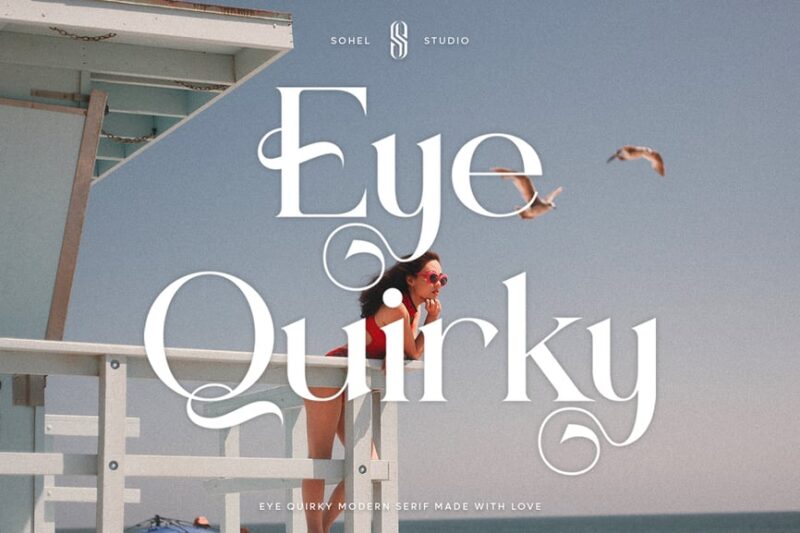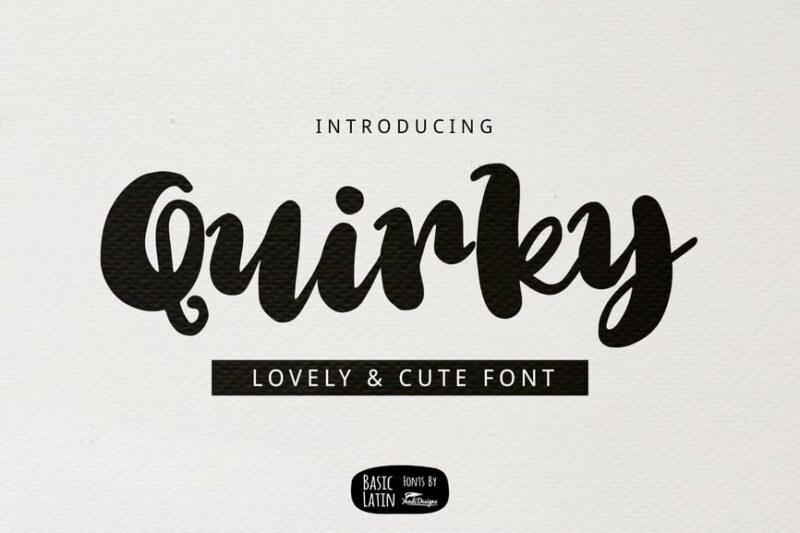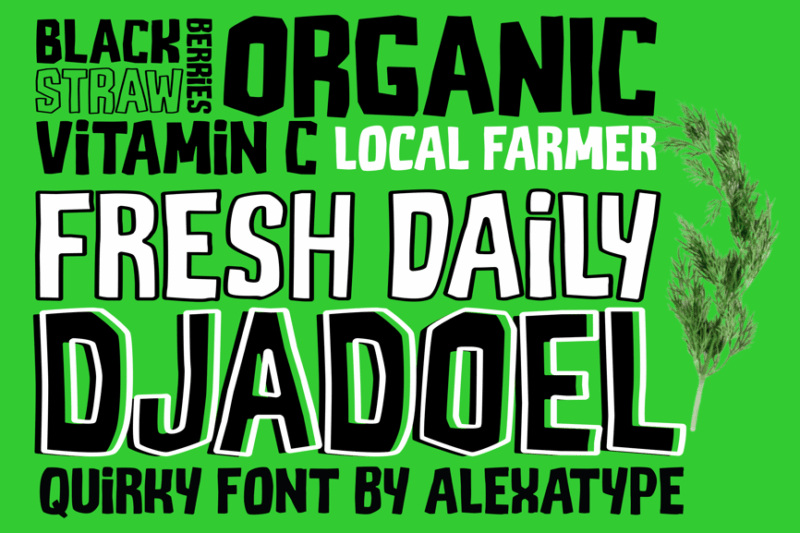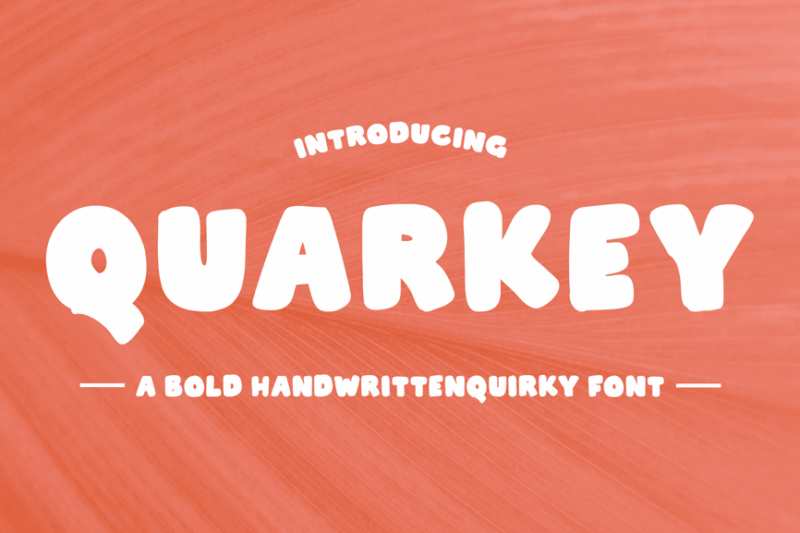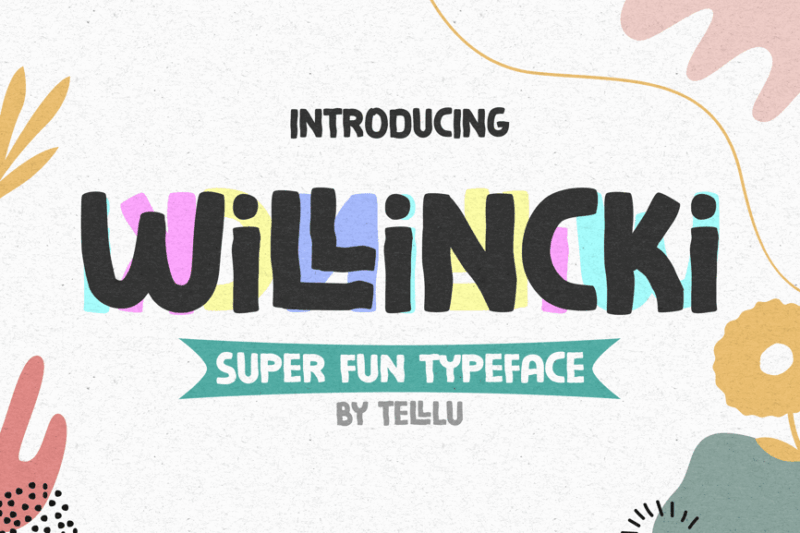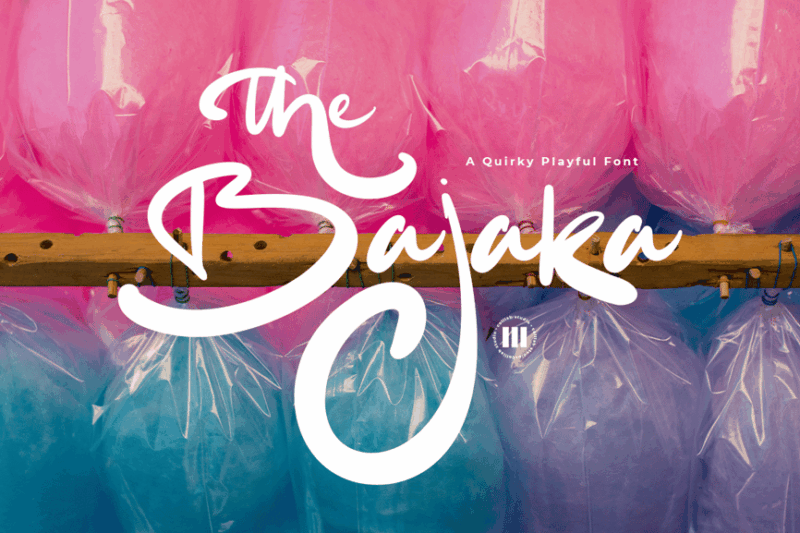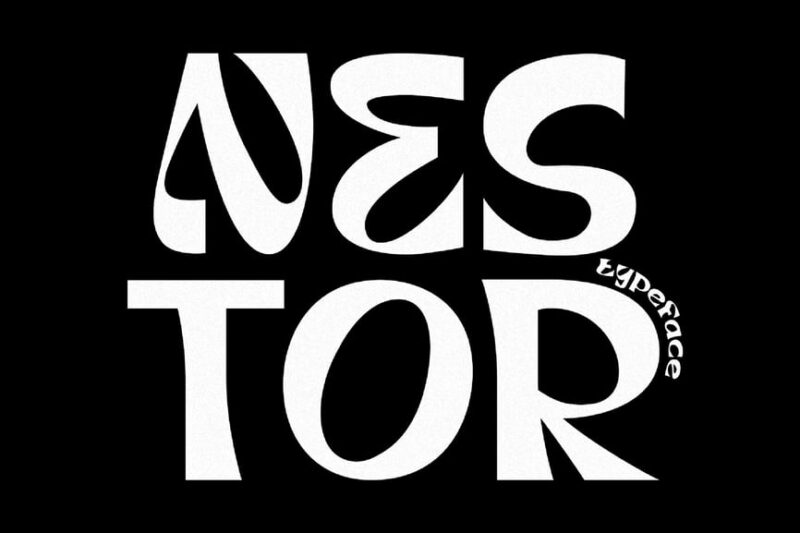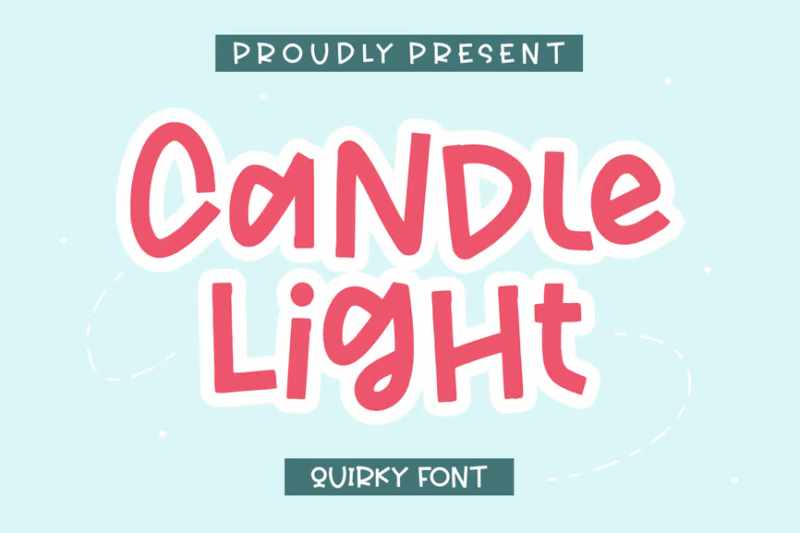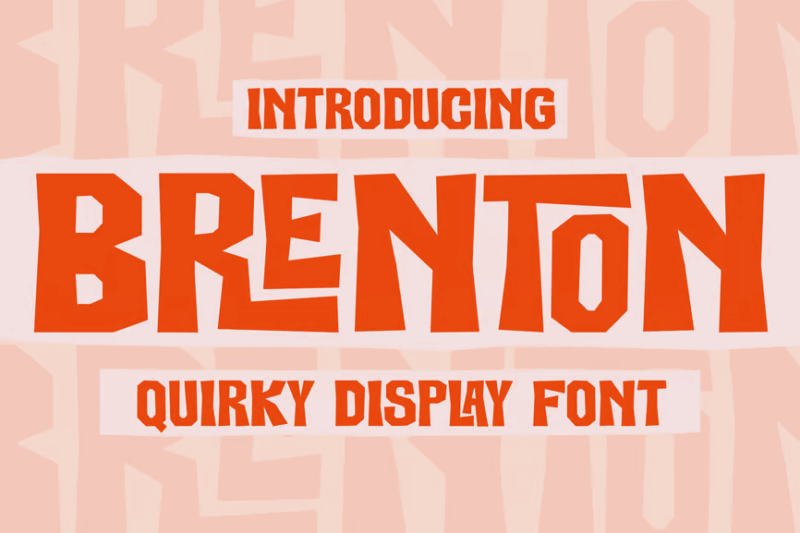
Quirky fonts are the lighthearted rebels of the typography world – they’re the ones with unexpected shapes, playful irregularities, and distinctive characters that refuse to follow the crowd. In a design landscape where minimalism has ruled for years, these unconventional fonts have become the perfect antidote to visual boredom.
Let’s jump into this typographic adventure and discover how the right quirky font can transform your next design from forgettable to unforgettable!
The Most Eye-Catching Quirky Fonts of 2026
I’ve scoured the design universe to bring you the absolute best quirky fonts that are making waves this year. Each one brings something unique to the table – from nostalgic retro vibes to completely off-the-wall experimental designs. Here are my top picks:
Juggler
Juggler is a bold block font with a quirky twist. Its strong, blocky letterforms are balanced with unexpected curves and angles, making it ideal for eye-catching headlines and branding projects that require a unique personality.
Quirky Font
Quirky Font is a handwritten script font that embodies simplicity and playfulness. Its whimsical character makes it suitable for casual designs, greeting cards, and projects that require a friendly, approachable feel.
Twelny
Twelny is a quirky and sweet sans-serif display font with a groovy vibe. Its rounded forms and subtle imperfections give it a friendly, approachable feel, making it suitable for branding projects, social media graphics, and retro-inspired designs.
DJADOEL
DJADOEL is a quirky all-caps sans-serif font with a decorative flair. Its playful nature makes it perfect for children’s designs and eye-catching posters, adding a fun and energetic vibe to any project.
Random Glyphs
Random Glyphs is a quirky mixed font that combines various glyph styles for a unique and eclectic look. This decorative font is perfect for creating attention-grabbing headlines, posters, or social media graphics that stand out from the crowd.
Quarkey
Quarkey is a handwritten quirky font that exudes a summery, carefree feel. Its decorative style makes it ideal for creating designs with a personal touch, perfect for social media posts, invitations, and casual branding.
Cliffhanger
Cliffhanger is a cute and quirky decorative font that showcases a unique alphabet design. Its playful nature makes it perfect for children’s books, fun logos, and designs that require a whimsical, lighthearted touch.
Eye Quirky
Eye Quirky is an elegant and unique serif font that combines classic aesthetics with a touch of quirkiness. Its decorative elements make it perfect for creating sophisticated designs with a subtle twist, ideal for branding and editorial projects.
Willincki
Willincki is a quirky and playful sans-serif typeface that embodies a casual and fun aesthetic. Its unique character makes it suitable for branding projects, packaging designs, and social media content that aims to stand out.
The Bajaka
The Bajaka is a quirky and playful doodle font with a unique decorative style. Its versatility makes it suitable for various business applications, from creative branding to eye-catching advertisements and social media graphics.
Nestor
Nestor is a quirky sans-serif typeface with decorative elements that spark creativity. Its unique character makes it ideal for modern branding projects, editorial designs, and digital media that require a fresh and innovative look.
Lemondy
Lemondy is a quirky sans-serif font with a fun and playful aesthetic. Its decorative style makes it perfect for creating eye-catching headlines, logos, and designs that require a bold and energetic presence.
Candle Light Quirky Font
Candle Light is a quirky script font that brings a handwritten charm to designs. Its unique style makes it ideal for branding projects, particularly those requiring a personal touch, such as invitations, logos, and packaging designs.
Brenton Quirky Display Font
Brenton is a quirky display font that combines sans-serif structure with decorative elements. Its distinctive character makes it perfect for creating standout branding materials, headlines, and designs that need to capture attention quickly.
Solnechka
Solnechka is a playful and quirky typeface designed specifically for children’s content. Its whimsical letterforms and cheerful aesthetic make it perfect for school-related projects, kids’ books, and educational materials.
Monro
Monro is a quirky display typeface that combines decorative elements with playful design. Its distinctive letterforms and creative ligatures make it perfect for creating memorable logos, packaging designs, and editorial headlines.
Crazy Party
Crazy Party is a quirky handmade font that exudes energy and excitement. Its irregular, hand-drawn appearance and freaky style make it perfect for party flyers, event posters, and designs that aim to capture a wild and spontaneous atmosphere.
Story Basty
Story Basty is a quirky handwritten font that combines elements of typography and calligraphy. Its flowing letterforms and unique character variations add a personal touch to designs, making it ideal for storytelling, branding, and creative projects that require a handcrafted feel.
Freaky Vibes
Freaky Vibes is an earthy lettering font that lives up to its name. Its decorative and unconventional letterforms create a sense of eccentricity and fun, perfect for designs that need to stand out and express a unique personality.
Savage Garden
Savage Garden is a set of three quirky and playful fonts that work harmoniously together. The varied styles within this family allow for versatile design options, making it suitable for branding projects, editorial layouts, and creative packaging designs.
Truly Quirky
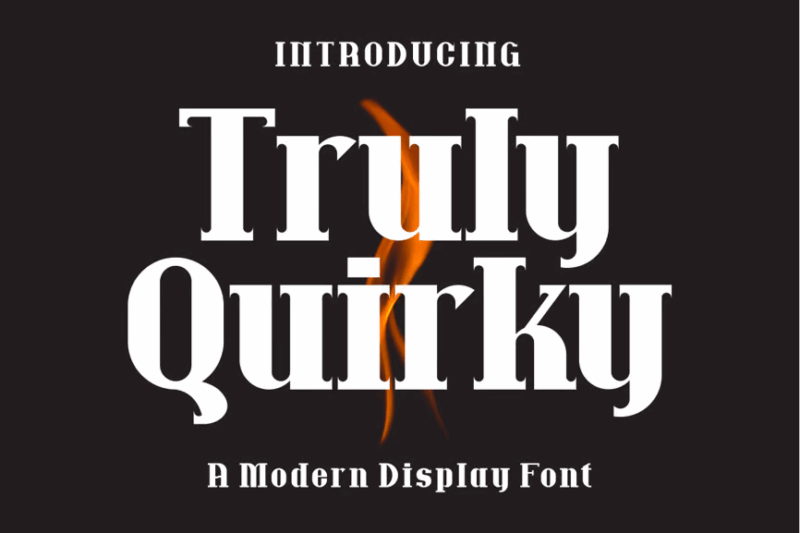
Truly Quirky is a serif font that combines traditional elements with unexpected twists. Its unique character shapes and subtle irregularities add personality to designs while maintaining readability, making it suitable for both body text and display purposes.
Charity
Charity is a quirky display font with a handwritten, script-like appearance. Its friendly and approachable style makes it perfect for non-profit organizations, community events, and designs that aim to convey warmth and compassion.
Osnabrug
Osnabrug is a quirky handwritten font that captures a range of emotions from happy to angry. Its expressive letterforms and varied character styles make it ideal for comic book designs, children’s illustrations, and projects that require a dynamic, emotive typeface.
Quirky Fashion
Quirky Fashion is a serif font designed specifically for fashion-related logos and websites. Its elegant yet unconventional letterforms strike a balance between sophistication and uniqueness, making it perfect for high-end fashion brands and lifestyle publications.
Asterluck
Asterluck is a quirky display font that combines script and handwritten styles. Its playful and fun character makes it perfect for creative projects that require a whimsical touch.
Sticky Glue
Sticky Glue is a bold, decorative font with a quirky personality. Its unique textured appearance resembles glue, making it ideal for eye-catching headlines and branding projects that demand attention.
Brakle
Brakle is a retro-inspired grotesk rounded sans-serif font. Its 90s aesthetic and smooth edges make it versatile for both modern and nostalgic design projects, particularly in branding and editorial layouts.
Tomcat Likely
Tomcat Likely is a quirky font that blends sans-serif and script styles. Its unique character makes it suitable for branding projects that require a playful and distinctive typographic voice.
Cheese Foodies
Cheese Foodies is a quirky font family combining script, handwritten, and sans-serif styles. Its cartoony nature makes it perfect for food-related branding, packaging, and fun, lighthearted designs.
Party Rocky
Party Rocky is a quirky sans-serif font designed for branding and fun projects. Its playful character and unique letterforms make it ideal for party invitations, children’s products, and energetic designs.
Bunny Galore
Bunny Galore is a decorative display font with a quirky charm. Its playful and whimsical nature makes it perfect for children’s books, greeting cards, and designs that require a touch of fun and imagination.
Carrier
Carrier is a decorative font featuring silhouettes, making it ideal for wedding-related designs. Its elegant and sophisticated style lends itself well to invitations, monograms, and romantic-themed projects.
Break Fast
Break Fast is a quirky display font with a handwritten feel. Its playful and energetic character makes it perfect for food-related designs, casual branding, and projects that require a friendly, approachable tone.
Comba
Comba is a bold, sans-serif display font designed for impact. Its strong presence and modern aesthetic make it ideal for posters, headlines, and designs that need to make a powerful visual statement.
Mommy Crafts
Mommy Crafts is a quirky and playful sans-serif font perfect for children’s designs and party invitations. Its decorative style adds a touch of whimsy to any project, making it ideal for crafty moms and creative professionals alike.
Double Pineapple
Double Pineapple is a playful and quirky decorative font that exudes tropical vibes. Its unique character shapes and fun design make it perfect for summer-themed projects, beach party invitations, or any design that needs a dose of cheerful energy.
CS Belia
CS Belia is a display sans-serif font that combines fun and playfulness with modern aesthetics. Its clean lines and rounded edges make it versatile for various design applications, from branding to editorial layouts.
IB – Sleggie
IB – Sleggie is a multi-style font family that includes serif, script, and handwritten variations. Its playful and display-oriented design makes it suitable for a wide range of creative projects, from logos to packaging designs.
Girly Kids font
Girly Kids font is a playful and fun sans-serif font with a Scandinavian-inspired design. Its quirky character shapes and gentle curves make it ideal for children’s products, nursery decor, and cute, feminine designs.
Hikaru
Hikaru is a whimsical brush font that brings a touch of handcrafted elegance to designs. Its flowing script style and subtle texture make it perfect for creating logos, packaging, or any project that requires a personal, artistic touch.
Monster Mash
Monster Mash is a quirky decorative font themed around dinosaurs and monsters. Its playful and imaginative design makes it perfect for children’s books, Halloween projects, or any design that needs a touch of friendly monster charm.
Ougkeh
Ougkeh is a vintage-inspired serif font with an antique feel. Its elegant letterforms and subtle imperfections give it a timeless quality, making it suitable for high-end branding, editorial designs, or projects that require a touch of classic sophistication.
Clever Science
Clever Science is a quirky decorative font designed with an educational theme. This versatile font family includes 11 variations, making it perfect for creating engaging and fun designs for scientific publications, educational materials, or STEM-related projects.
Music Note
Music Note is a quirky display font with a musical theme. Its unique design incorporates musical symbols and notes, making it ideal for creating eye-catching designs for music events, album covers, or any project related to the music industry.
Wiloka
Wiloka is a modern sans-serif font with a clean and minimalist design. Its balanced proportions and subtle character details make it an excellent choice for logo design, branding projects, or any application that requires a contemporary and versatile typeface.
Froaky
Froaky is a stylish display sans-serif font with a bold and contemporary feel. Its unique character shapes and geometric influences make it perfect for creating impactful headlines, logos, or modern branding projects that demand attention.
SUBURBIA
SUBURBIA is a sharp and quirky sans-serif font inspired by Saul Bass’s iconic style. Its cutout design and bold shapes make it ideal for creating retro-inspired graphics, movie posters, or any project that aims to capture a vintage mid-century aesthetic.
Skreeble
Skreeble is a fun and playful handwriting font that mimics scribbled text. Its casual and energetic style makes it perfect for adding a personal touch to designs, creating informal graphics, or adding a handmade feel to digital projects.
Colorful Candy
Colorful Candy is a quirky display font that lives up to its name with a sweet and vibrant design. Its playful character shapes and candy-inspired aesthetics make it ideal for children’s designs, confectionery branding, or any project that needs a dose of colorful fun.
Mr Blue Sky Font
Mr Blue Sky is a fun and cheerful display sans-serif font. Its rounded edges and playful design make it perfect for creating friendly and approachable designs, such as children’s book covers, casual branding, or upbeat marketing materials.
What Makes a Font Truly “Quirky”?
Before we dive deeper, let’s get clear on what actually makes a font deserve the “quirky” label. It’s more than just being unusual – truly quirky fonts have specific characteristics that set them apart:
Unexpected Character Shapes
Quirky fonts often feature letterforms that challenge our expectations. They might have unusual proportions, unexpected angles, or completely reimagined structures while still remaining recognizable enough to read. Think of letters with extra loops, missing pieces, or elements that extend well beyond the normal boundaries.
Playful Irregularity
Unlike traditional fonts that value consistency, quirky fonts embrace irregularity. They might feature varying baselines, inconsistent weights, or characters that seem to dance around rather than sit neatly in a row. This controlled chaos is what gives these fonts their distinctive personality.
Distinctive Details
Look closely at any quirky font and you’ll notice thoughtful details that add character – unusual serifs, unexpected textures, or creative ligatures that connect letters in surprising ways. These small touches often become the most memorable aspects of the design.
Rule-Breaking Attitude
At their core, quirky fonts have a rebellious spirit. They intentionally break typographic conventions – yet do so with enough purpose and skill that they remain functional. The best quirky fonts know exactly which rules to break and which to keep.
These characteristics combine to create fonts that do more than just communicate words – they communicate personality, emotion, and a distinct point of view. That’s the true power of a quirky font when used thoughtfully.
How to Pair Quirky Fonts Effectively
Quirky fonts shine brightest when they’re given the right supporting cast. The art of pairing these distinctive typefaces requires a delicate balance – you want to complement their uniqueness without creating visual chaos. Here’s how to nail those pairings:
Balance with Neutrals
The golden rule of using quirky fonts is to pair them with clean, neutral companions. A minimalist sans-serif like Helvetica or Open Sans provides the perfect backdrop for your quirky font to stand out. This contrast creates visual hierarchy while keeping the overall design balanced.
Mind the Mood
Every quirky font has a distinct personality and emotional tone. When pairing, make sure your secondary font matches this mood. A playful, bouncy quirky font might pair well with a friendly rounded sans-serif, while a quirky font with vintage vibes might work better with a classic serif.
Create Clear Hierarchy
Reserve your quirky font for headlines, quotes, or other prominent elements where their uniqueness can shine. Use your more conventional fonts for body text and supporting information. This creates a clear visual hierarchy that guides the viewer’s eye through your design.
Limit Your Selection
When working with quirky fonts, embrace restraint. One quirky font per design is usually enough – combining multiple statement fonts is like having too many lead singers in a band. Let your chosen quirky font be the star, supported by just one or two more conventional typefaces.
Remember that successful font pairing is all about creating meaningful contrast while maintaining harmony. Your quirky font should stand out, but still feel like it belongs in the overall design.
Best Practices for Using Quirky Fonts
Quirky fonts are powerful design tools, but they require a thoughtful approach to use effectively. Here are some essential guidelines to help you make the most of these distinctive typefaces:
Know When (and When Not) to Use Them
Quirky fonts shine in projects that call for personality and creative expression – branding for unique businesses, editorial designs, posters, packaging, and social media graphics. However, they’re generally not ideal for formal documents, complex information design, or situations where absolute clarity and quick reading are essential.
Consider Readability at Different Sizes
Many quirky fonts work beautifully as large headlines but become difficult to read at smaller sizes. Always test your chosen font at various sizes to ensure it remains legible throughout your design. If a quirky font becomes unreadable when small, reserve it for larger display text only.
Give Them Room to Breathe
Quirky fonts often need more space than conventional typefaces. Give them generous line height and letter spacing to prevent characters from colliding or creating visual confusion. This breathing room also helps showcase the unique details that make these fonts special.
Use Color Strategically
Color can either enhance or overwhelm a quirky font. For fonts with intricate details or unusual shapes, simple color schemes often work best. Let the distinctive letterforms speak for themselves without competing with complex color treatments.
Consider the Medium
Some quirky fonts that look amazing on screen might lose their impact in print, and vice versa. Always test your font in the medium where it will ultimately appear. Pay special attention to how thin lines, small details, or textured elements translate across different media.
By following these best practices, you can harness the personality of quirky fonts while maintaining professional, effective design. Remember, using quirky fonts isn’t about making designs weird – it’s about making them memorable in a purposeful way.
The Psychology Behind Quirky Fonts
Ever wonder why certain fonts stick in your mind while others fade immediately? There’s fascinating psychology behind why quirky fonts can make such a powerful impression on viewers:
The Von Restorff Effect
Psychologists have identified what they call the “Von Restorff Effect” – our tendency to remember things that stand out from their surroundings. Quirky fonts leverage this principle perfectly. When most brands use safe, conventional typography, the brand with the distinctive quirky font naturally commands more attention and memory space in consumers’ minds.
Emotional Connection
Quirky fonts often evoke stronger emotional responses than traditional typefaces. Their distinctive personalities can trigger feelings of nostalgia, whimsy, excitement, or curiosity. These emotional connections make brands more memorable and help forge stronger bonds with audiences.
Brand Distinctiveness
In marketing psychology, “distinctive brand assets” are elements that people immediately associate with your brand. A unique quirky font can become one of your most powerful distinctive assets – think of how Coca-Cola’s distinctive script or Disney’s whimsical typeface are instantly recognizable even without their logos.
Pattern Disruption
Our brains are wired to notice when patterns are broken. Quirky fonts with their unexpected shapes and details create visual disruption that causes viewers to pause and pay closer attention. This extra processing time often leads to better recall later.
Understanding these psychological principles can help you use quirky fonts more strategically in your designs. When you choose a quirky font that aligns with your brand’s personality, you’re not just making an aesthetic choice – you’re creating a powerful psychological tool for brand recognition and recall.
When Quirky Fonts Go Wrong (And How to Avoid It)
For all their charm and personality, quirky fonts can sometimes go terribly wrong. Let’s look at some common pitfalls and how to avoid them:
The Readability Trap
The most common mistake is sacrificing readability for quirk factor. No matter how creative your font is, if people struggle to read it, your message gets lost. Always have someone unfamiliar with your design test the readability before finalizing.
Trend Without Purpose
Using quirky fonts just because they’re trending, without considering if they align with your brand’s personality, is a recipe for design disaster. Make sure the quirky font you choose actually reinforces your message rather than contradicting it.
Overloading the Design
When you have an exciting quirky font, it’s tempting to fill your design with it. But quirky fonts need space and restraint to shine. Using them sparingly prevents visual exhaustion and keeps their impact strong.
Poor Context Matching
A playful, bouncy font might be perfect for a children’s toy brand but would undermine the credibility of a financial institution. Always consider if your quirky font choice matches the expectations and needs of your specific audience and industry.
Neglecting Technical Considerations
Some quirky fonts look great in static designs but fall apart when used on websites or in animations. Always test your font in its final application to ensure it performs as expected across all relevant platforms and uses.
By being mindful of these potential pitfalls, you can enjoy all the benefits of quirky fonts while avoiding their common drawbacks. Remember, the goal isn’t just to be different – it’s to be meaningfully distinctive in a way that serves your design’s purpose.
Creating Your Own Quirky Font
Feeling inspired to create your own unique quirky font? While developing a complete typeface is no small undertaking, even beginners can experiment with creating simple quirky letterforms. Here’s a starter guide:
Begin with Inspiration
Start by collecting examples of quirky fonts that speak to you. Analyze what specific elements make them distinctive. Is it unusual proportions? Unexpected details? Identifying these patterns will help inform your own design approach.
Define Your Concept
Every memorable quirky font has a strong concept behind it. Maybe yours is inspired by vintage carnival signage, or perhaps it’s based on the shapes found in urban architecture. Having a clear concept will guide your design decisions and give your font cohesion.
Sketch Before Digitizing
Even in our digital age, starting with pencil and paper allows for more fluid, intuitive exploration. Sketch multiple versions of each character to explore different possibilities before moving to digital tools.
Maintain a Consistent “DNA”
While quirky fonts embrace irregularity, they still need some consistent elements that tie the characters together. This might be a particular angle, a distinctive treatment of curves, or a unique approach to serifs. These shared traits become your font’s “DNA.”
Test Early and Often
As your font develops, regularly test how it looks in actual words and sentences. What looks great as an individual character might not work well in context. Be prepared to revise and refine repeatedly.
Consider Using Font Creation Tools
For beginners, tools like Glyphr Studio (free), FontForge (open source), or Fontself (Adobe Illustrator/Photoshop extension) can make the technical aspects of font creation more accessible.
Creating your own quirky font is both challenging and incredibly rewarding. Even if your first attempt isn’t perfect, the process will deepen your understanding of typography and inform your future design work.
Conclusion: Embracing Typographic Personality
As we’ve explored throughout this article, quirky fonts are much more than just visually interesting letterforms – they’re powerful tools for creating memorable, emotionally resonant designs that stand out in an increasingly homogenized visual landscape.
When used thoughtfully, these distinctive typefaces can:
- Transform ordinary designs into unforgettable visual experiences
- Help brands develop stronger, more distinctive identities
- Create emotional connections with audiences
- Express complex brand personalities without saying a word
The key to success with quirky fonts lies in understanding their unique strengths and limitations. By pairing them strategically, using them in appropriate contexts, and giving them the space they need to shine, you can harness all their personality while avoiding common pitfalls.
As we move further into 2026, I expect we’ll see even more designers embracing typographic personality as a counterpoint to the minimalist aesthetic that has dominated for so long. The pendulum is swinging back toward expressiveness, individuality, and yes – delightful quirkiness.
So go ahead and experiment with these wonderfully weird and personality-filled fonts in your next project. Your designs will be more memorable for it, and you might just have a lot more fun in the process.